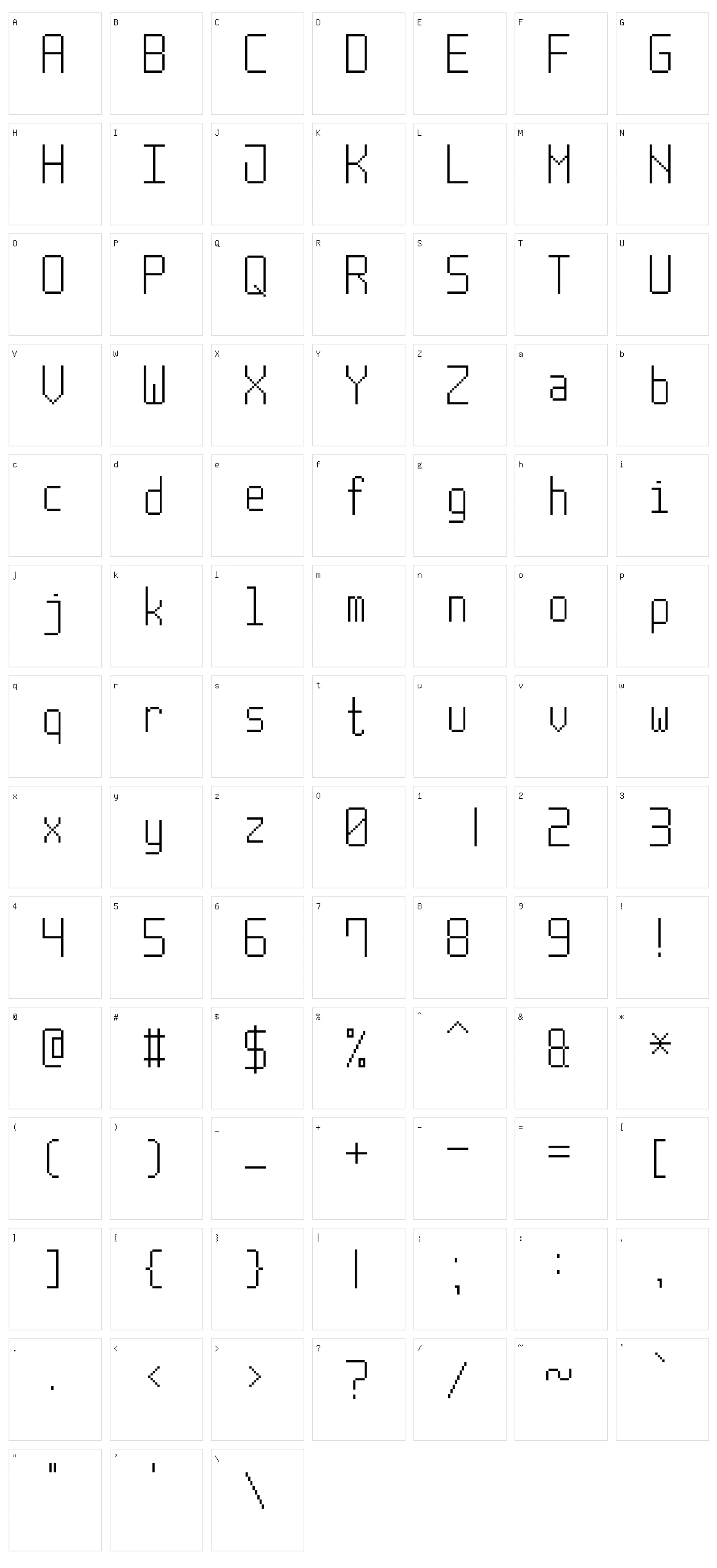
Post Pixel-7
Designed by: Style-7
Original pixel font. Capital and lower case letters have the same width: 9 and 7 pixels. Latin and Cyrillic code pages are supported.